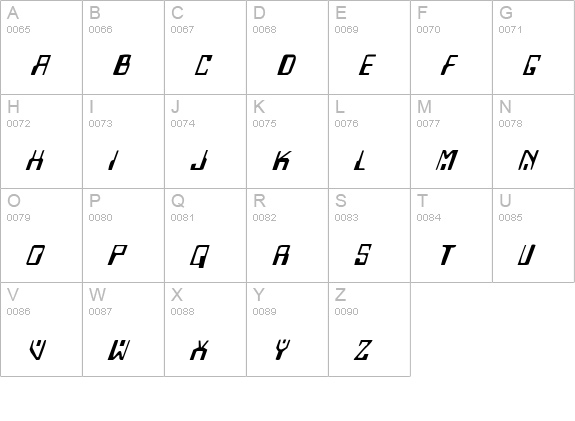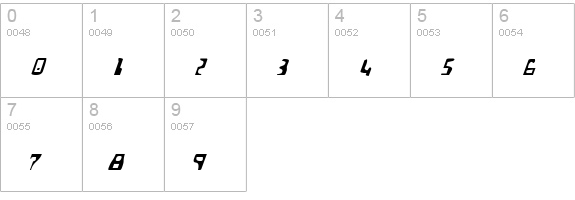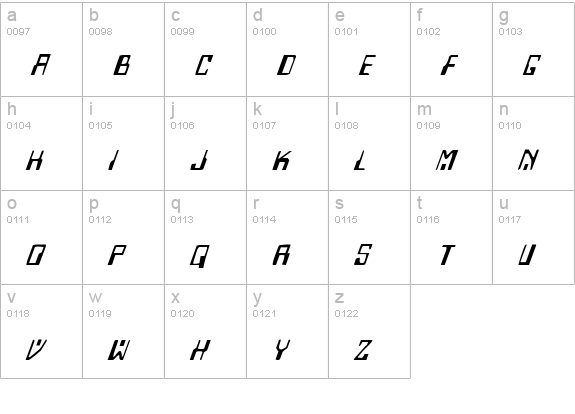
Homemade Robot Italic Font Details
Homemade Robot Italic is a distinctive, italic variant in the Homemade typeface family \xE2\x80\x94 well suited to design and typography projects.
Homemade Robot Italic font is a charming and quirky typeface that brings a touch of handmade appeal to your projects. Its playful slanted design adds a unique flair to any text, making it perfect for creative works, invitations, posters, and more. The italicized characters give a dynamic and energetic feel to your designs, adding a modern twist to traditional typography. Best of all, Homemade Robot Italic font is completely free to use and download. You can easily access this fun and versatile font at FontsMarket.com, where you can enhance your projects with its whimsical style without any cost. So why wait? Give your designs a fresh and original look by incorporating Homemade Robot Italic font today!